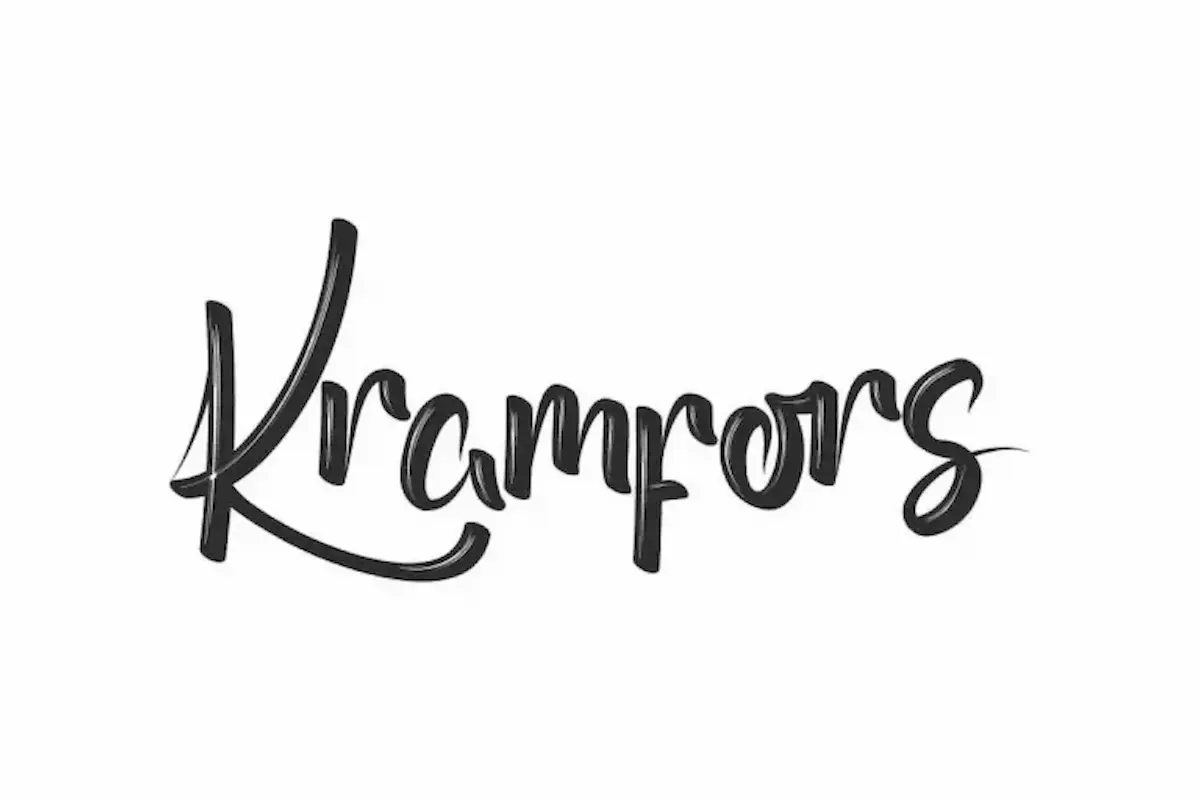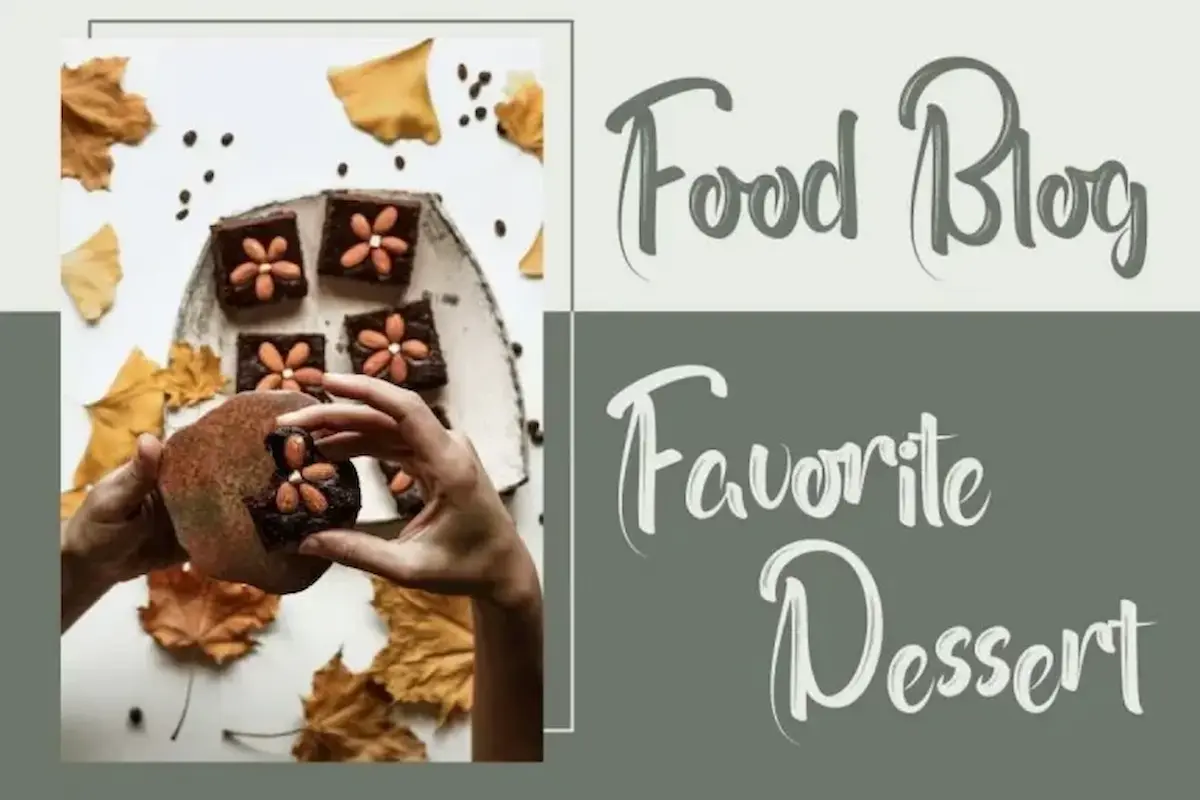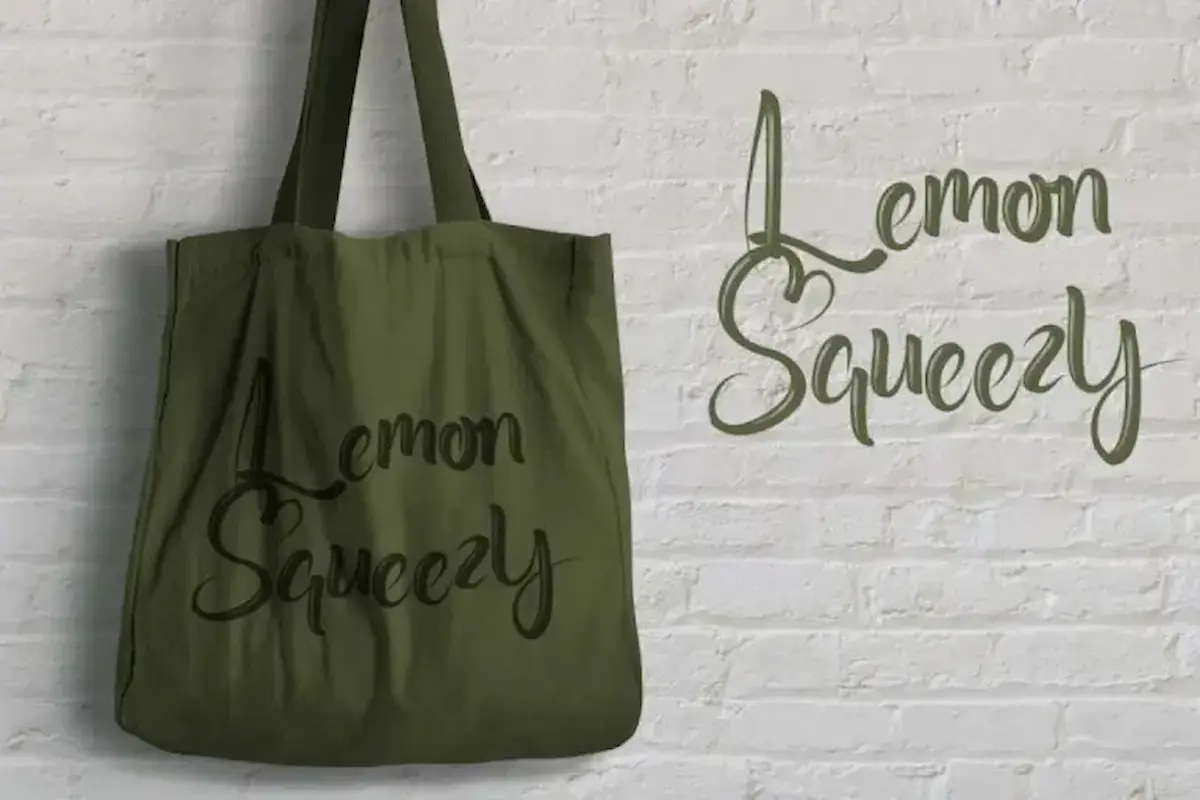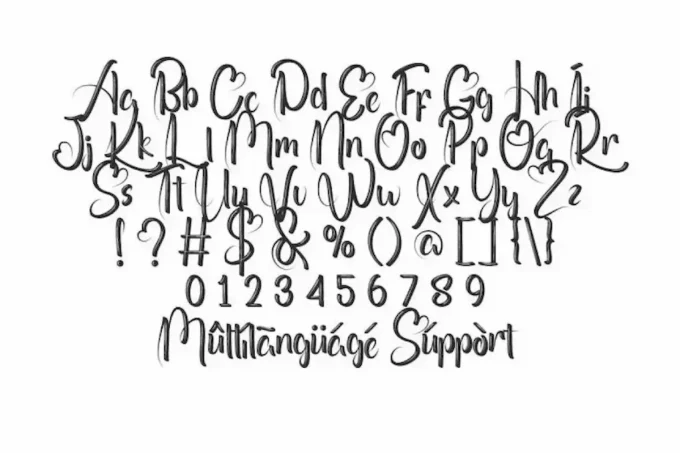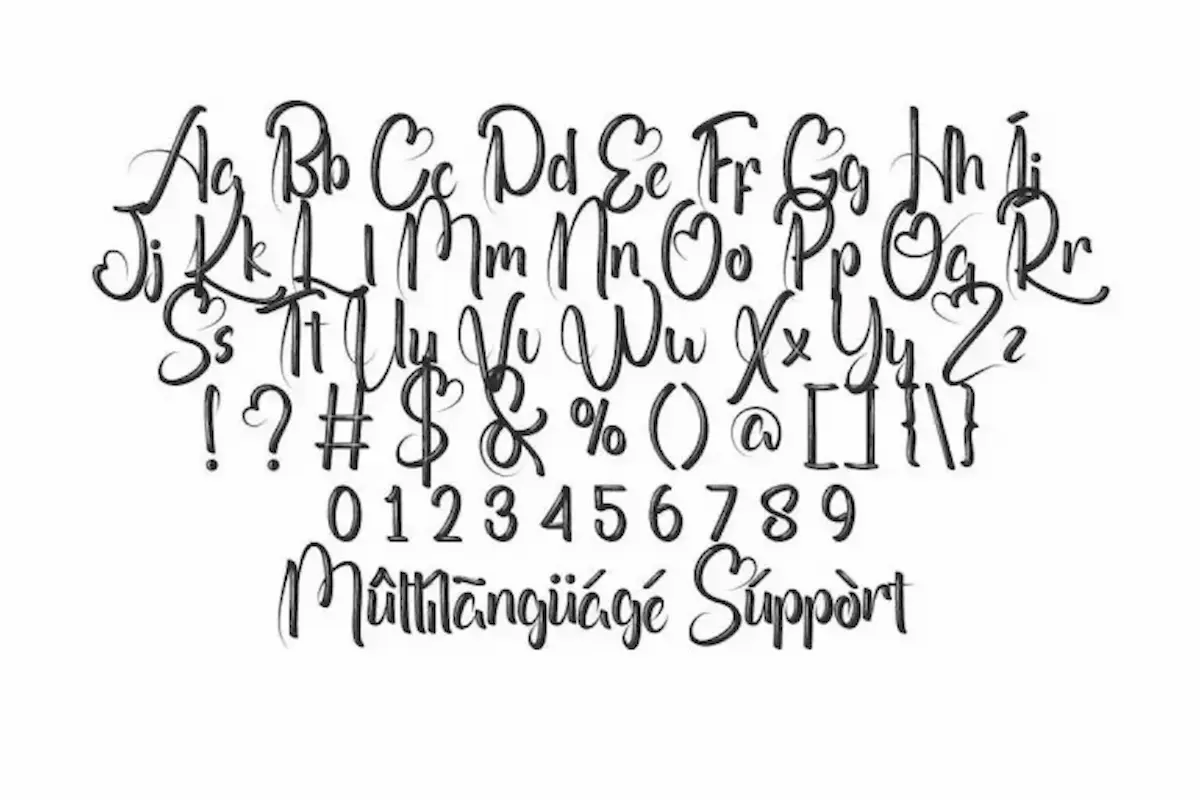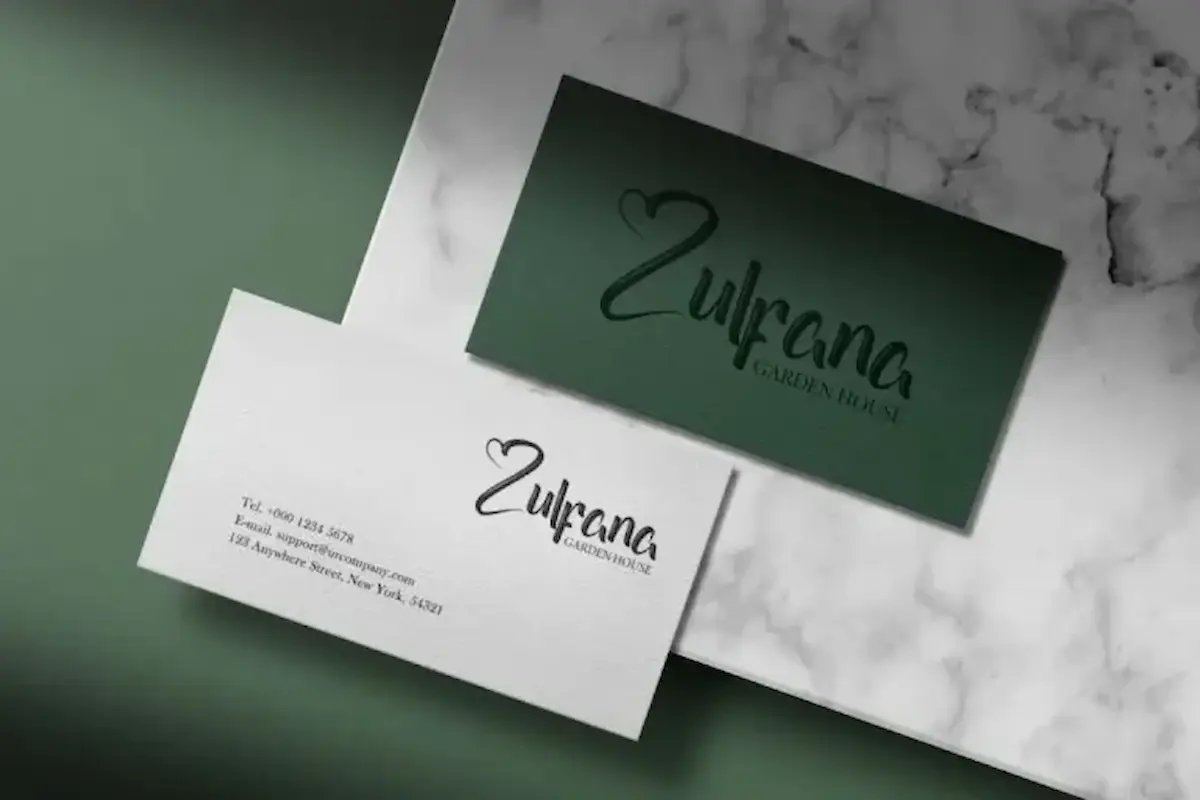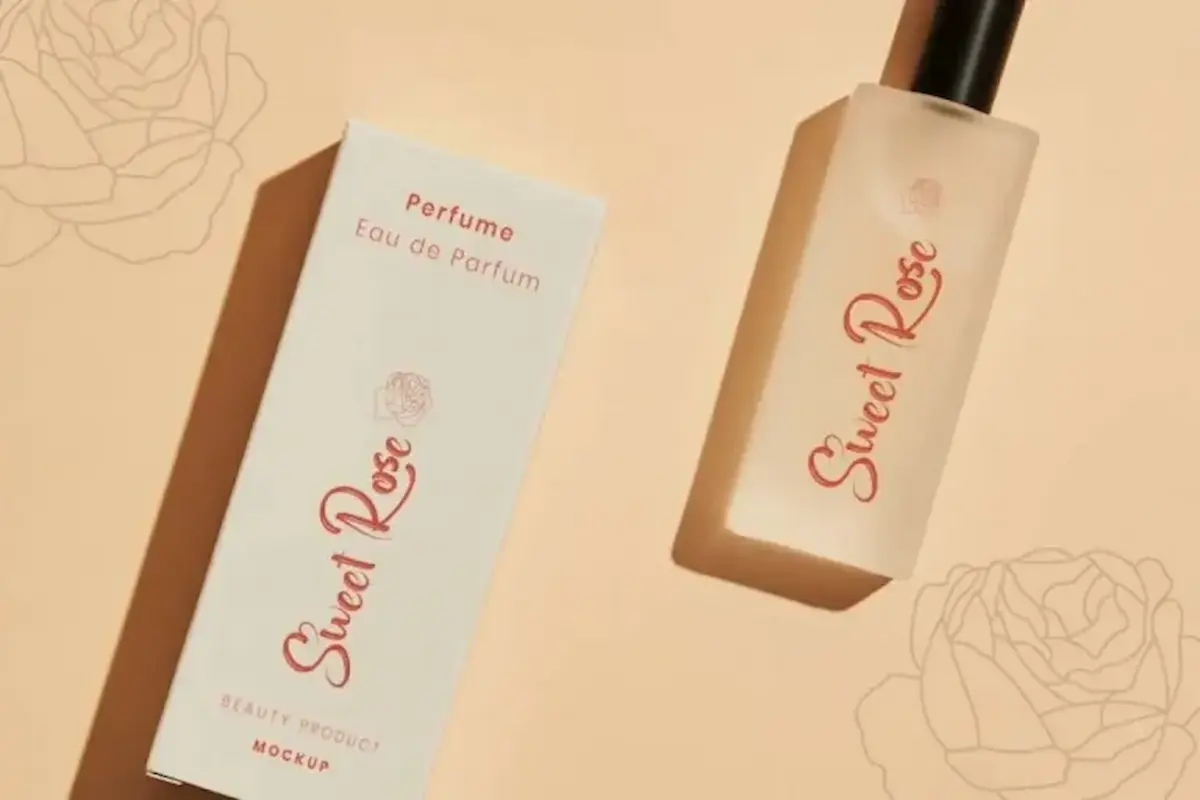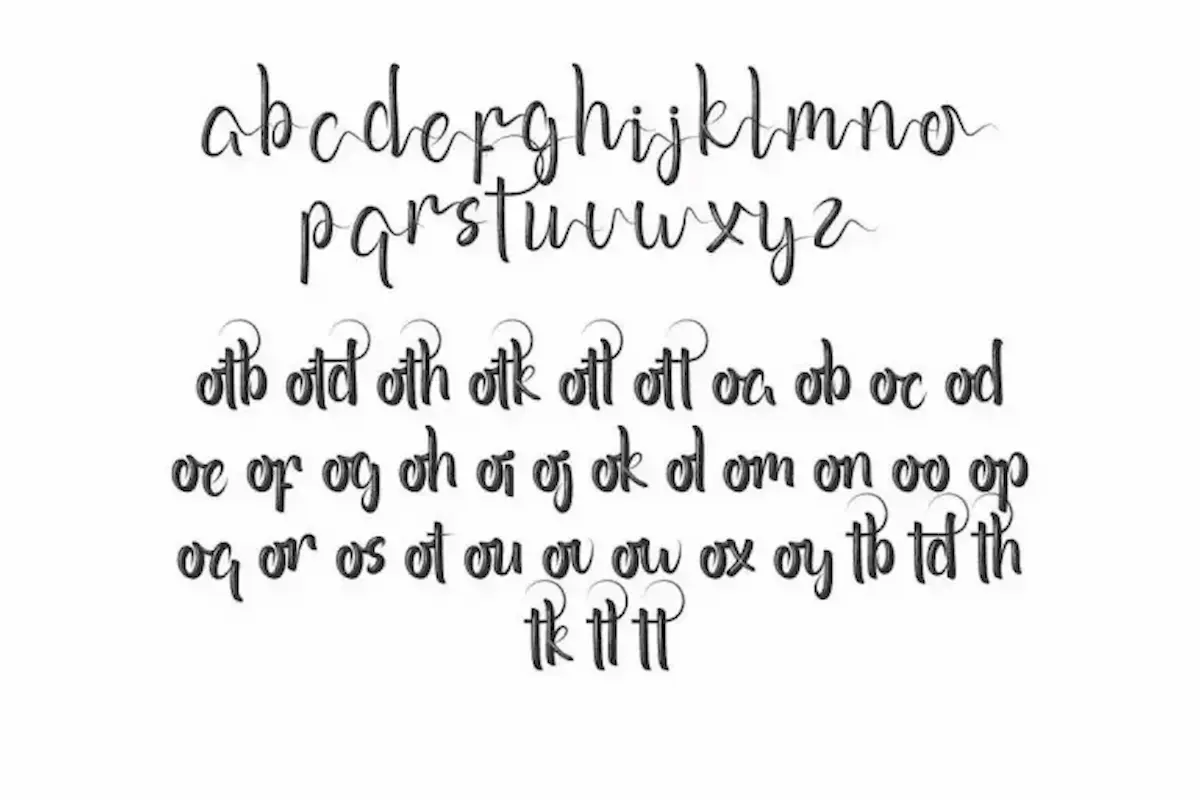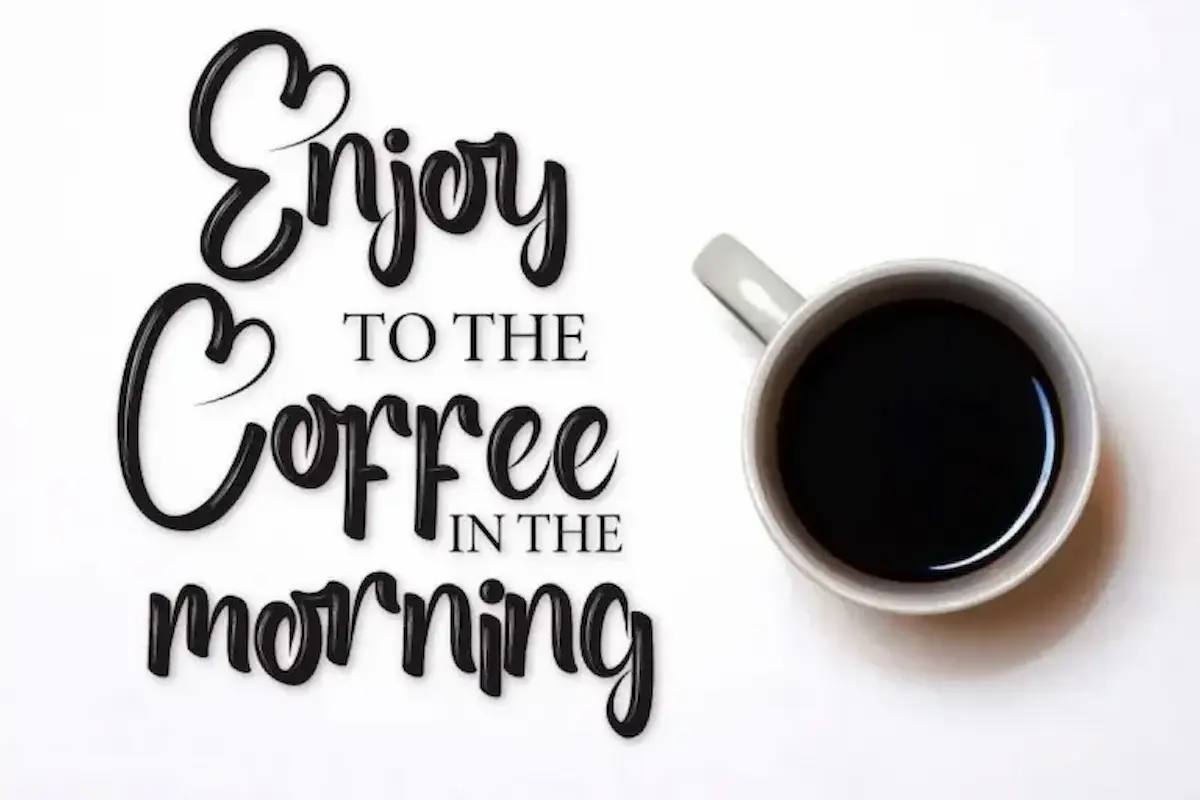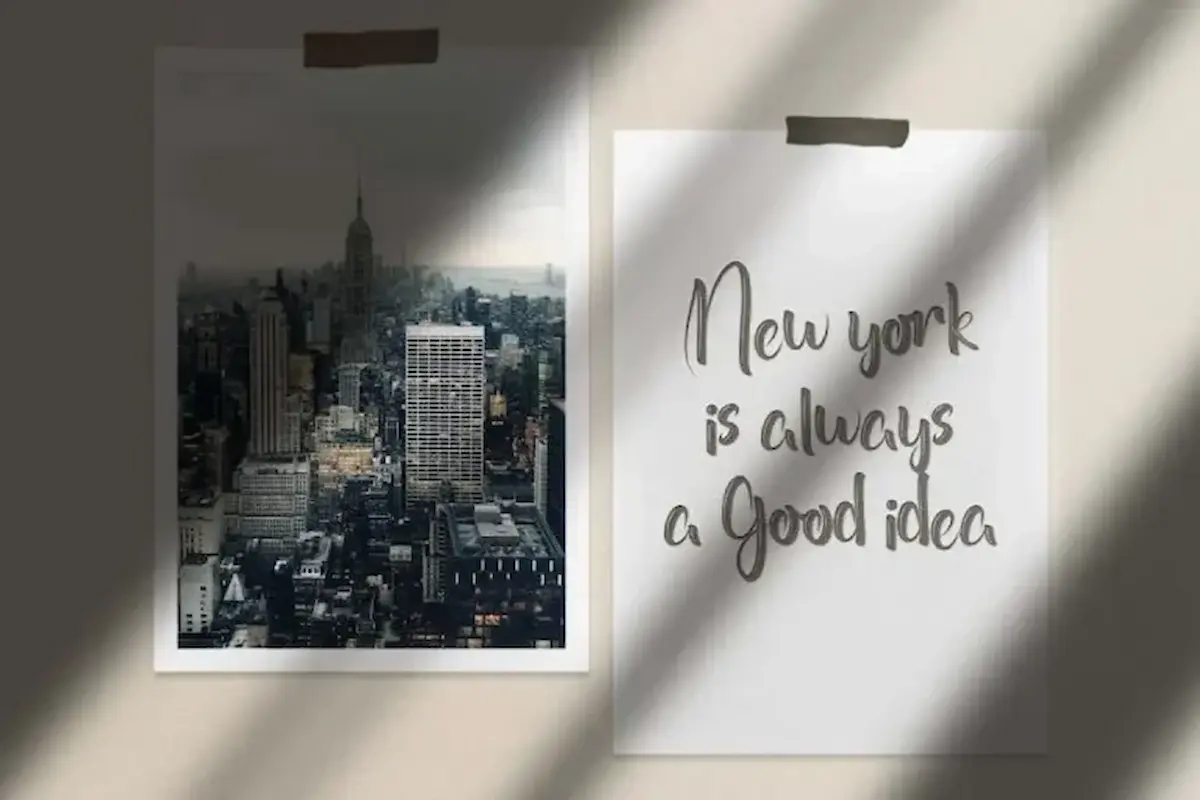
Kramfors Font is a bouncy stylish script font by NihStudio. Made in Indonesia, great for products, restaurants, cafe, brandings etc
Kramfors Font is a Bouncy Textured Script Font by NihStudio. Try the font by typing your own text below. Please note that the test font below is a demo file, so some specimens/ characters will not show up.
Kramfors Font will be great for any projects (require extended license) including : branding, logo, stationery, wedding invitation, signage, flyer, video tittle etc. The theme style of the font is playful, classic and casual brush style. The font will be match for this typeface: houseware, cosmetic, events, artist, musician, café, coffee, promotion, etc